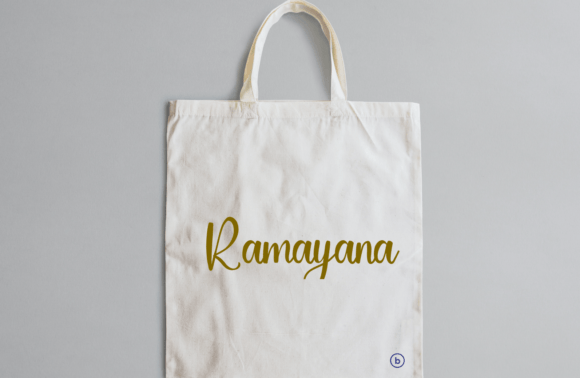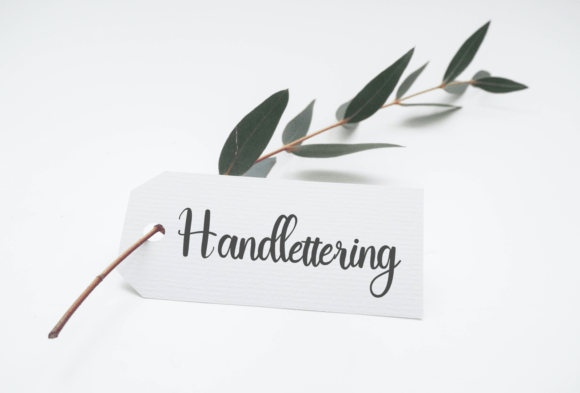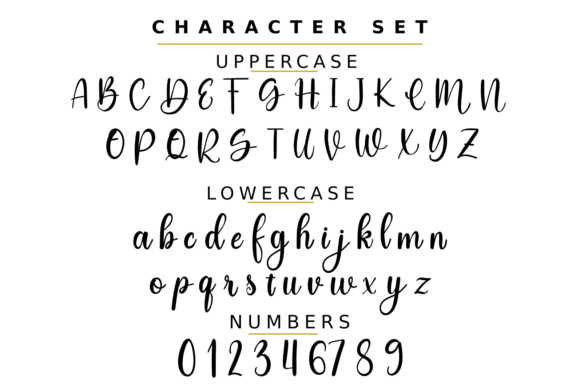
Mandinak Font
About Mandinak Font
Mandinak is a charming handwritten font, characterized by its classic simplicity and unique random freestyle. This font’s organic, handcrafted feel adds a personal touch to any creative project, making it a versatile choice for a wide range of applications.
Ideal for logotypes, Mandinak effortlessly captures attention with its casual yet elegant style. Its versatility shines in headlines, enhancing the visual impact of your messages. In the realm of corporate and brand identity, Mandinak adds a touch of approachable sophistication, making it perfect for businesses aiming for a friendly and professional image.
Within the apparel industry, Mandinak lends a sense of authenticity to clothing designs, making brands more relatable to customers. Its expressive qualities make it suitable for posters, adding a dynamic flair to event announcements and promotional materials. In the realms of music, movies, and games, this font injects personality into titles and credits, contributing to a memorable visual experience.
Magazines, books, comics, and cartoons benefit from Mandinak’s readability and character, enhancing the overall visual narrative. In the digital realm, it finds its place seamlessly on platforms like YouTube, Instagram, and websites, making your content more engaging and personable. Mandinak’s friendly appeal also makes it a favorite for social media posts, connecting with audiences on a personal level.
No matter the creative endeavor, Mandinak brings a sense of authenticity and warmth. Its versatile nature ensures it complements your design vision, transforming ordinary projects into visually appealing and relatable experiences. Embrace the creative freedom offered by Mandinak, and let its handwritten charm elevate your designs to new heights.